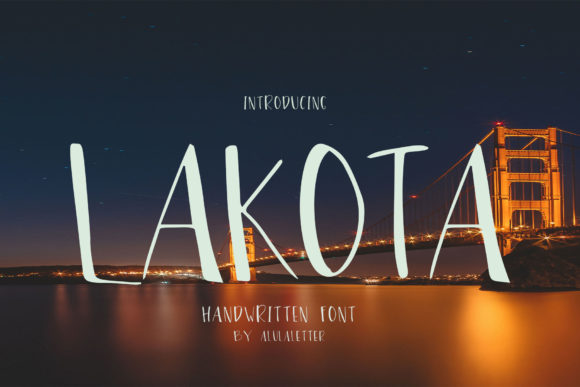
Behold the Lakota Font, a splendid creation of alulazaheera05, that invites you into a realm of elegance and charm. This all-caps handwritten font is not just a collection of letters, but an artistic masterpiece that adds a touch of sophistication to any design. With its graceful curves and playful strokes, Lakota Font breathes life into your words, captivating your audience with its undeniable allure.
Lakota Font isn't merely a font; it's an experience. Each character is meticulously crafted to evoke emotion and convey a message. Whether you're designing a captivating headline, a memorable logo, or an alluring social media post, Lakota Font is your perfect companion. Its versatility extends beyond digital realms; it's perfect for handwritten notes, adding a personal touch to cards, invitations, and other physical creations.
We understand that choosing the right font is like selecting a piece of art for your design. It's not just about functionality; it's about creating an emotional connection with your audience. Lakota Font possesses an innate ability to do just that. Its captivating nature draws eyes and captivates hearts, leaving a lasting impression that lingers in the minds of your viewers.
With Lakota Font, you're not limited to a single style. It's a font that adapts to your creative vision. Whether you seek a classic and timeless look or a bold and contemporary flair, Lakota Font has the power to transform your words into works of art. Unleash your imagination and explore the endless possibilities that await you with this extraordinary font.